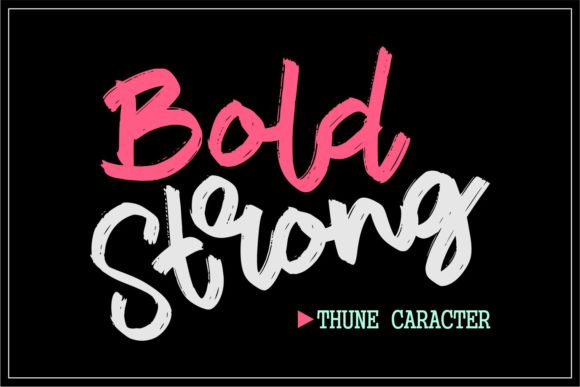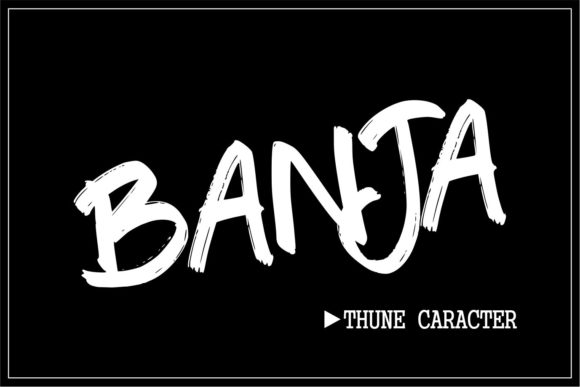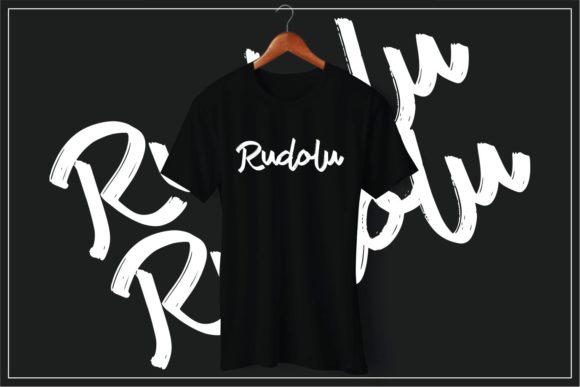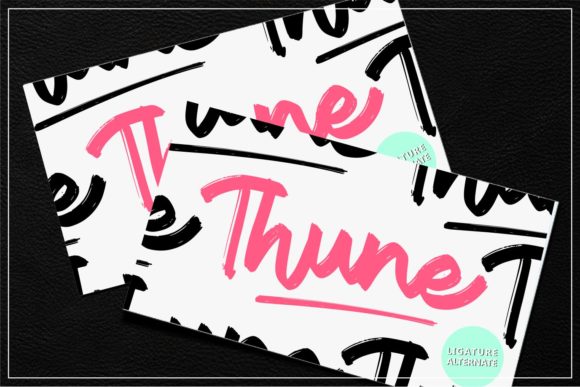
HomeScript FontsThune Font Script Fonts Thune Font FacebookXPinterestWhatsApp Thune Font Poster 2 Thune Font Poster 3 Thune Font Poster 4 Thune Font Poster 5 About Thune Font Thune is a calligraphy style font with casual appeal. Fall in love with its playful look & feel! DOWNLOAD ON CREATIVE FABRICAThis font is sold and delivered by Creative Fabrica. Font Canyon may earn a commission if you buy through this link. People also explored Benifera Font Baggel Font Hokese Brush Font Allysia Font Neon Absolute Duo Font Balley Font Nadine Klenik Homestay Font 432 0 TagsThune Font Previous articleNakytta FontNext articleQalifony Font LEAVE A REPLY Cancel reply Comment: Please enter your comment! Name:* Please enter your name here Email:* You have entered an incorrect email address! Please enter your email address here Website: Save my name, email, and website in this browser for the next time I comment. Personal Use Free Thruster Personal Use Free Read more about this font Casual Personal Use Free Read more about this font The Brighton Personal Use Free Read more about this font Screengem Personal Use Free Read more about this font BLOG Using Fonts in Digital Marketing: Tips to Strengthen Your Brand Identity In the realm of digital marketing, every visual element plays a crucial role in shaping a brand's identity, and fonts are no exception. The... Best Fonts for T-Shirt Design – Top 2025 Picks How to Cut Any Font on Cricut: Convert a Font to SVG (Free) Where to Buy American Fonts Online in 2024